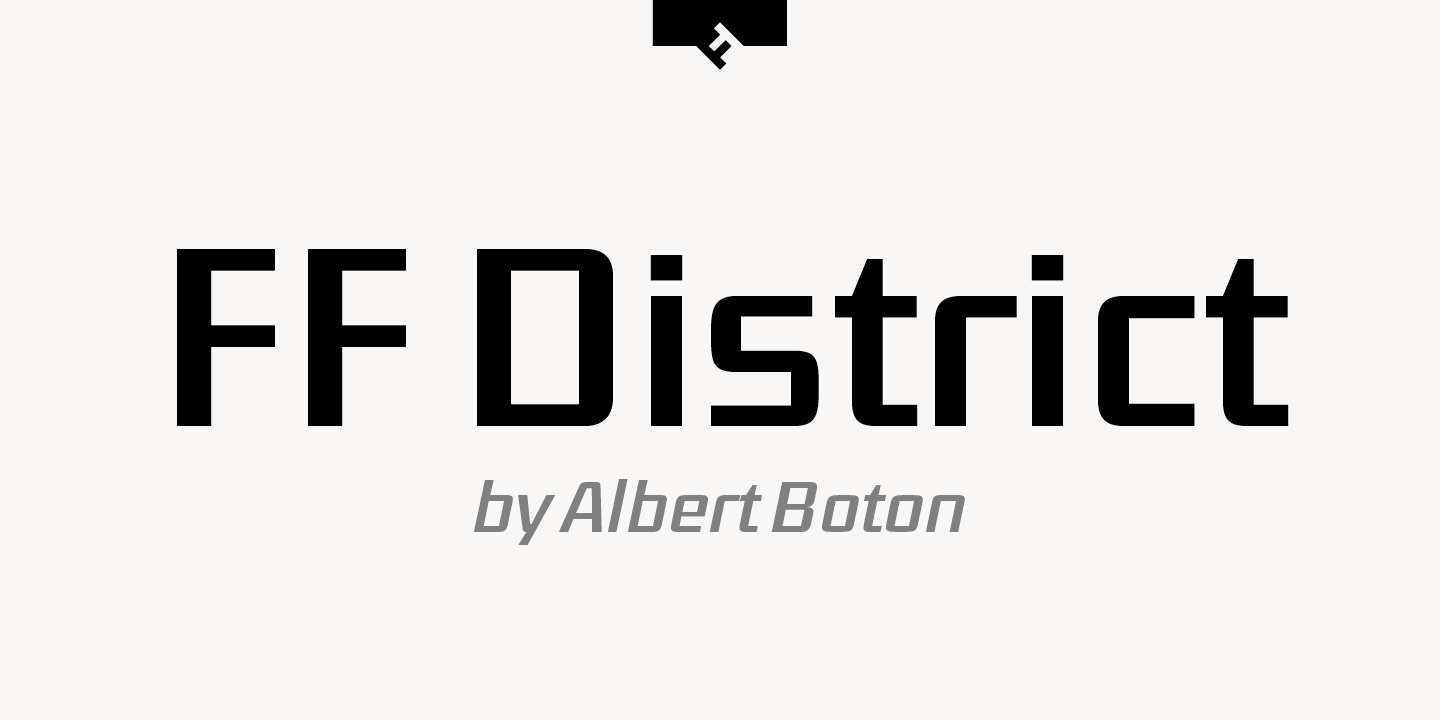
FF District Font is perfect for urban planning firms, metropolitan transit systems, city government communications, architectural studios, municipal services, neighborhood associations, real estate developments, and civic organizations that require contemporary typography with municipal authority and modern urban sophistication.
What makes FF District Font exciting is its exceptional ability to capture the essence of modern city life through clean, institutional letterforms that balance official authority with contemporary accessibility. This professional typeface features structured characteristics and municipal clarity that communicate civic responsibility and urban efficiency, making it ideal for organizations serving metropolitan communities.
The FF District Font family includes thin, light, regular, medium, and bold weights, complemented by condensed variations for space-efficient municipal applications. Each style maintains the font's characteristic civic authority while providing designers with comprehensive tools for creating organized layouts and official communications that serve diverse urban populations effectively.
Municipal professionals consistently select FF District Font Free Download for projects requiring governmental credibility and urban sophistication. This versatile typeface seamlessly communicates official authority while maintaining public accessibility, ensuring civic messages resonate with citizens seeking reliable municipal services and transparent government communications.
The font's institutional precision and urban character make it particularly suitable for government and public service sectors. FF District Font delivers exceptional civic impact while ensuring optimal legibility across diverse communication channels, offering designers a dependable solution for creating memorable brand identities that communicate efficiency, transparency, and municipal excellence across urban governance and public service applications.